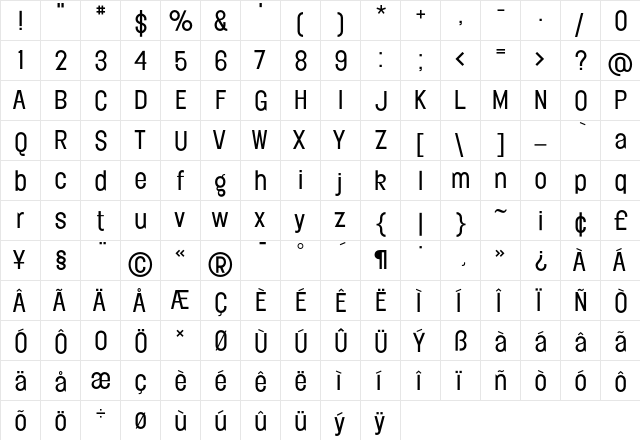
Elephant Light
Design Context for Elephant Typeface
Elephant takes a measured approach to typography — its balanced proportions and neutral character make it a reliable workhorse for both digital and print work. The delicate stroke weight brings airiness and refinement to layouts.
Pro Tip: Pair Elephant with a font of contrasting weight or personality to build a more expressive typographic hierarchy.